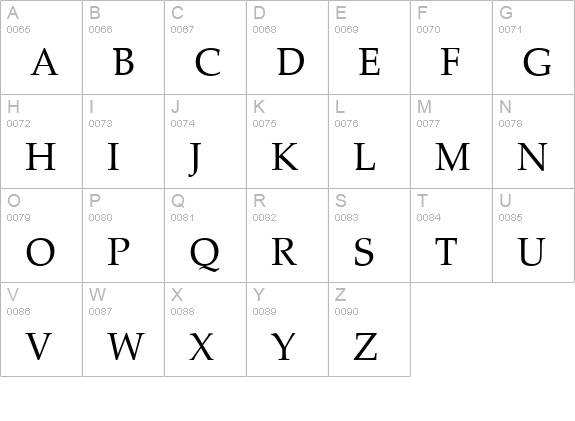
Palladio-Regular Font Details
Palladio-Regular is the standard, neutral variant in the Palladio typeface family \xE2\x80\x94 well suited to general body text, paragraphs, and standard typographic work.
Palladio-Regular font is a timeless and elegant typeface that exudes sophistication and refinement. With its classic serifs and balanced proportions, this font is perfect for a wide range of design projects, from invitations to branding to editorial layouts. What sets Palladio-Regular apart is not just its aesthetic appeal, but also its versatility and readability. Whether used for body text or headlines, this font remains clear and legible, making it a favorite among designers and typographers alike. And the best part? Palladio-Regular is available for free download at FontsMarket.com, where you can easily access this premium font and enhance your design projects without breaking the bank. Don't miss out on this opportunity to elevate your typography game with Palladio-Regular font.